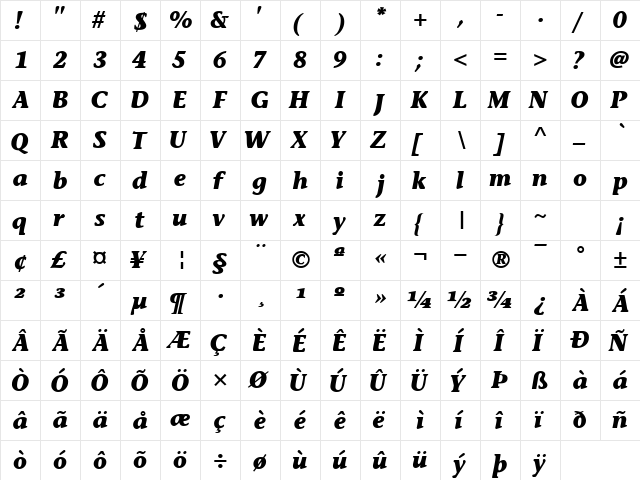
MesouranCasualBlackSSK Italic
Design Context for MesouranCasualBlackSSK Typeface
MesouranCasualBlackSSK offers clean, dependable letterforms without strong stylistic allegiance, making it a practical choice for designers who need flexibility. Its italic angle brings a sense of urgency and motion to the letterforms.
Pro Tip: Use MesouranCasualBlackSSK for emphasis, pull quotes, and subheadings where its slanted energy can add rhythm to the layout.